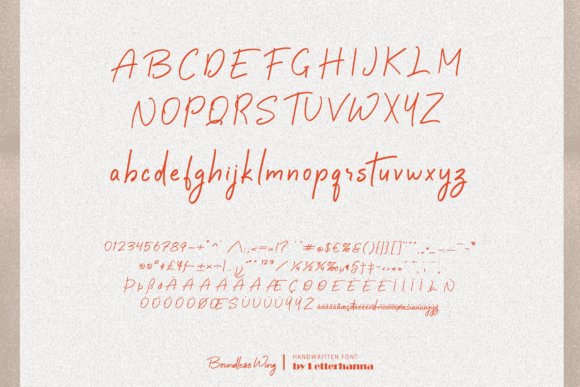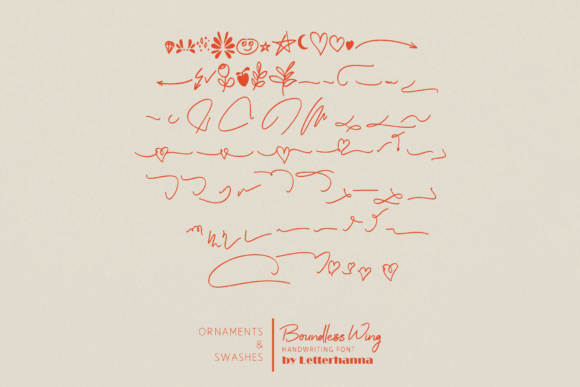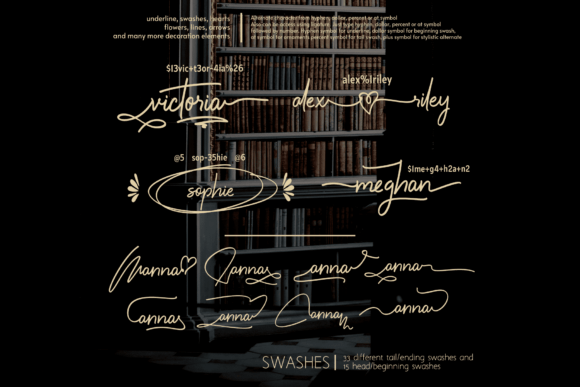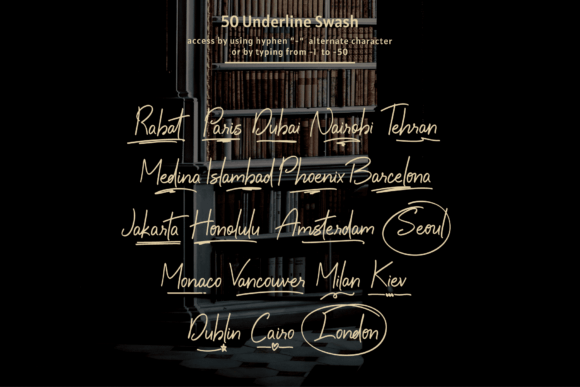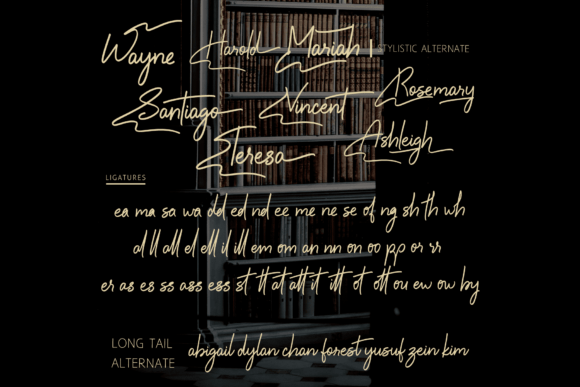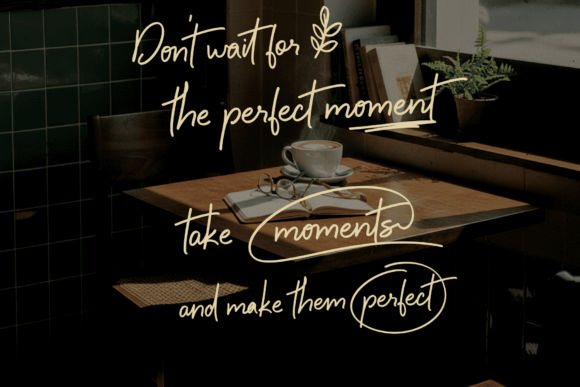
The Power of Imperfection in Design
Have you ever scribbled down a brilliant idea in a notebook, only to wish you could bottle the raw energy of those imperfect strokes? That’s exactly what Letterhanna Studio aimed to capture with the Boundless Wing Font. This beautiful, handwritten script font is designed to evoke the feeling of a handwritten note, while remaining remarkably readable.
Perfect for designers looking to add a touch of personality to their work, the Boundless Wing Font features a wealth of customization options, including abundant ligatures, dramatic swashes, and a library of stylistic alternates and ornaments. Whether you’re creating bold headlines, social media graphics, or editorial designs, this font is sure to help you break free from ordinary typography and make a lasting impression.
Boundless Wing Font Key Features
- Font Style: Script, Calligraphy, Handwritten
- Unique Characteristics: Includes ligatures, swashes, and flourishes for a highly customized look
- Language Support: Supports a wide range of languages, including Latin, Cyrillic, and Greek
Designer Review: Boundless Wing Font
I recently had the chance to work with the Boundless Wing Font, and I have to say, it’s a unique and captivating choice for digital designs. ✨ The font’s hand-drawn feel and flowing lines give it a sense of elegance and sophistication, making it perfect for luxury or high-end branding.
One of the standout features of Boundless Wing is its exceptional legibility, even at smaller font sizes. ✨ This makes it an excellent choice for body text or paragraph layouts where readability is crucial.
Limits and Considerations
While Boundless Wing is a beautiful font, there are some limitations to consider: ⚠️ The font may not be the best choice for bold or headlines-heavy designs, as it can become difficult to read at larger sizes.
Overall, I think Boundless Wing is a great addition to any designer’s toolkit. While it may not be the best choice for every project, it’s a versatile and beautiful font that can add a touch of sophistication to the right designs. ✨
Tips for Getting the Most Out of Boundless Wing Font
Experiment with different font sizes and combinations to create visually appealing designs.
Pair the Boundless Wing Font with other creative fonts to add depth and interest.
Use the font for titles, headings, and short paragraphs to create a sense of balance.
The Boundless Wing Font is ideal for:
Book covers and interior designs.
Marketing materials and branding.
Alternatives to Boundless Wing Font
Great Vibes is a modern, elegant script font that can be used for various purposes such as logos, quotes, and headings. It is a good alternative to Boundless Wing Font as it has a similar flowing and cursive style, but with a more refined and sophisticated look.
Comparison: While Boundless Wing Font has a more whimsical and playful feel, Great Vibes Font is more versatile and can be used for formal and informal designs.
Dancing Script is a beautiful, handwritten font that is perfect for adding a touch of elegance and sophistication to designs. It is a good alternative to Boundless Wing Font as it has a similar flowing and cursive style, but with a more fluid and dynamic feel.
Comparison: While Boundless Wing Font has a more quirky and whimsical feel, Dancing Script Font is more refined and polished, making it suitable for high-end designs.
Carolyna Pro is a luxurious, modern script font that is perfect for creating a high-end look. It is a good alternative to Boundless Wing Font as it has a similar elegant and sophisticated feel, but with a more refined and polished look.
Comparison: While Boundless Wing Font has a more playful and whimsical feel, Carolyna Pro Font is more formal and elegant, making it suitable for luxury brands and high-end designs.